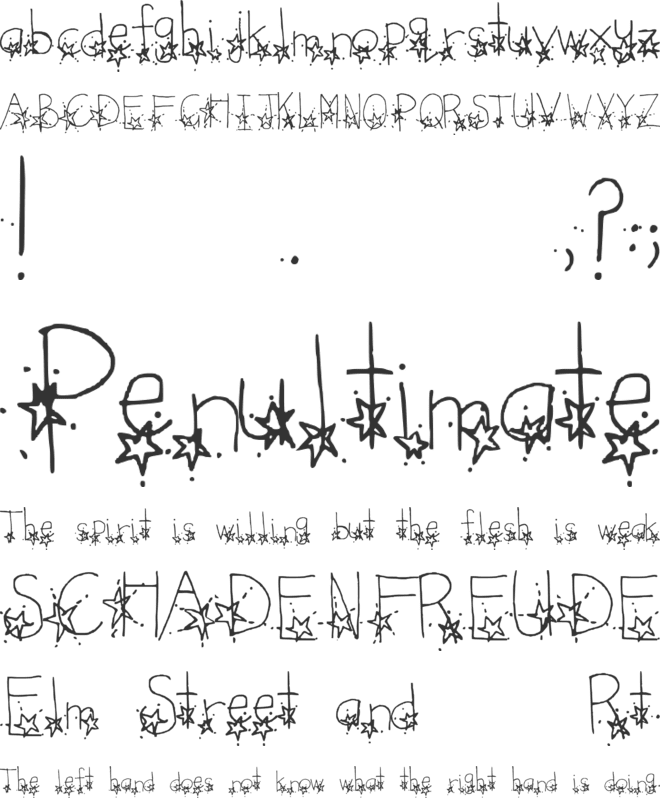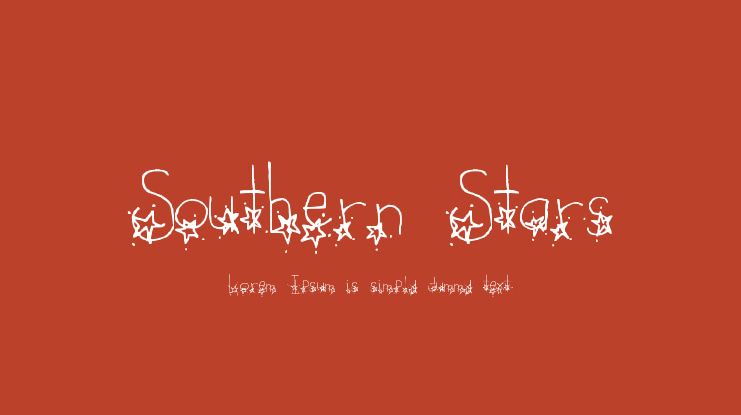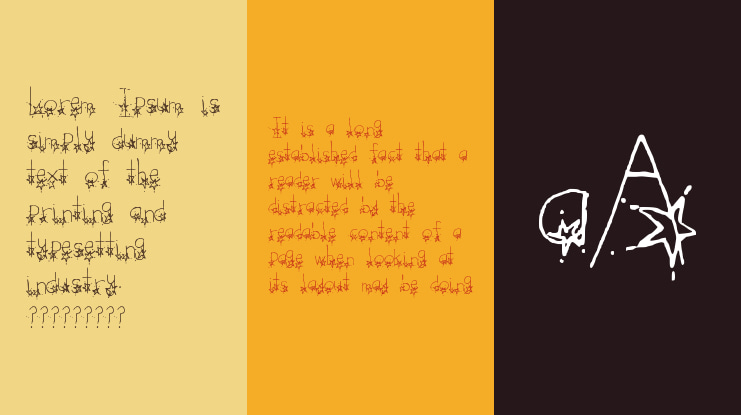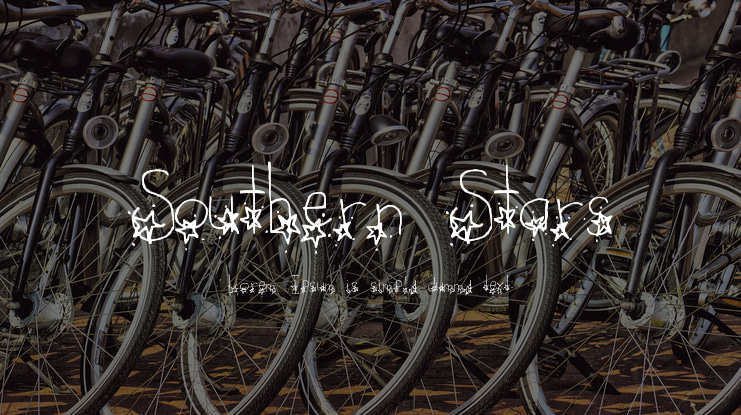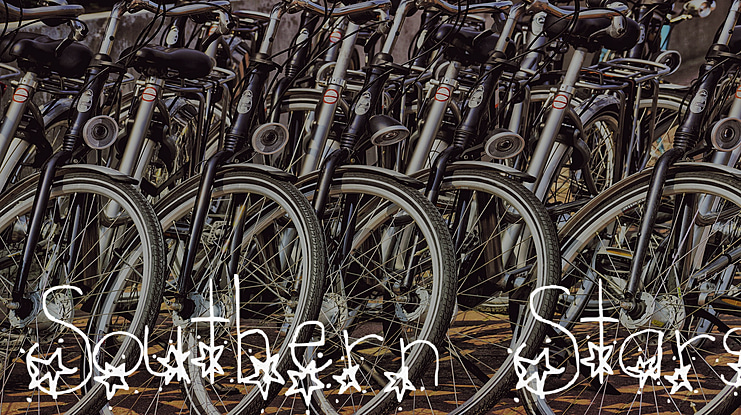
Southern Stars Font
Here is a cute starry font where the stars are placed at the bottom of the letters; hence, 'Southern Stars'. You could try colouring in some of those stars using the program 'Paintbrush' to give it a colourful look. The background image was free to use from Pixabay. If you would like to use this font for commercial purposes, it only costs 99c from: https://www.creativefabrica.com/designer/shelley-2 Thank you!